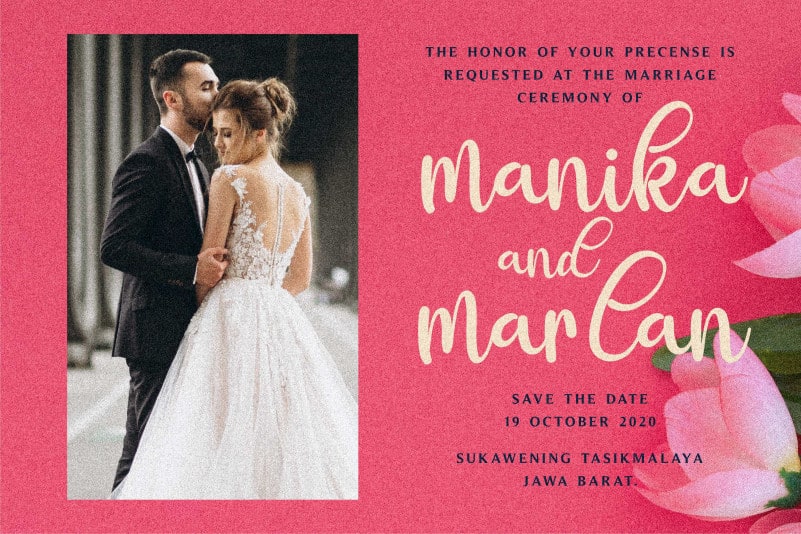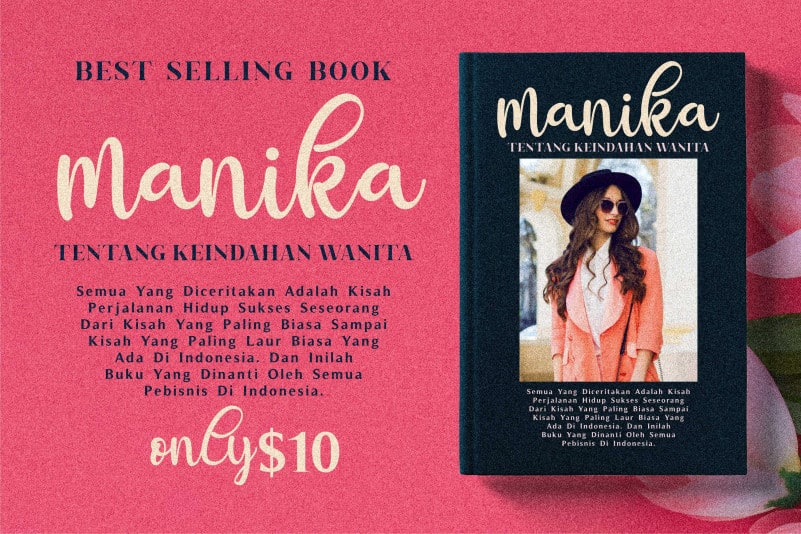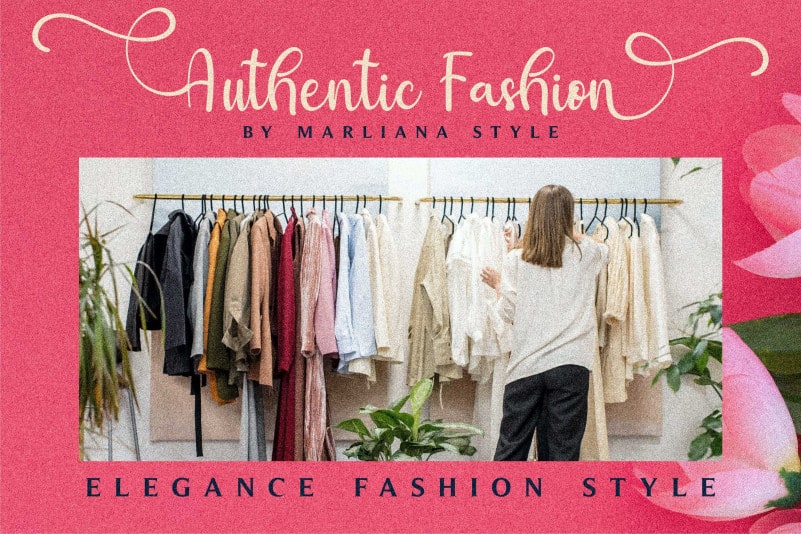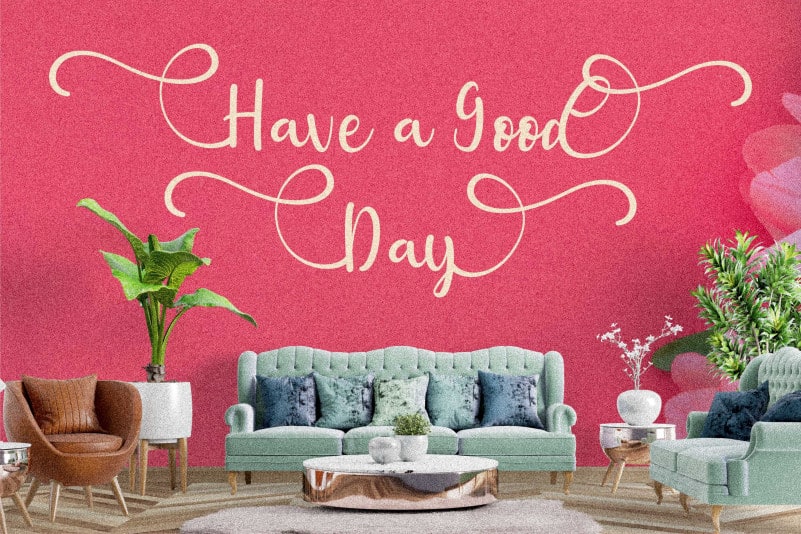
Manika Calligraphy Font
Manika Calligraphy Font is a fun and friendly handwritten font. Fall in love with it and bring your projects to the highest levels!